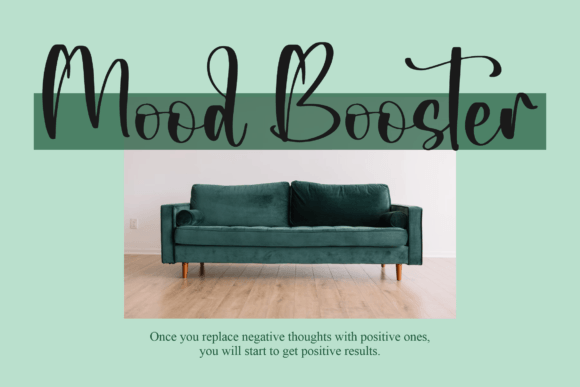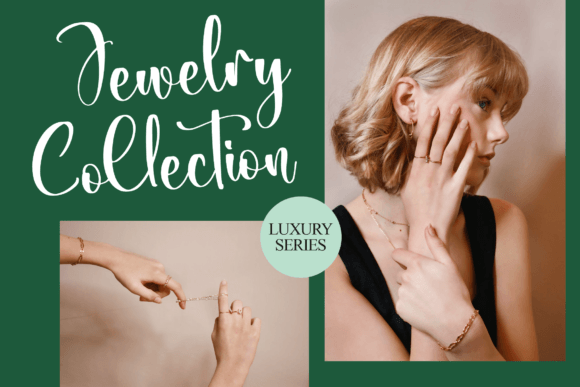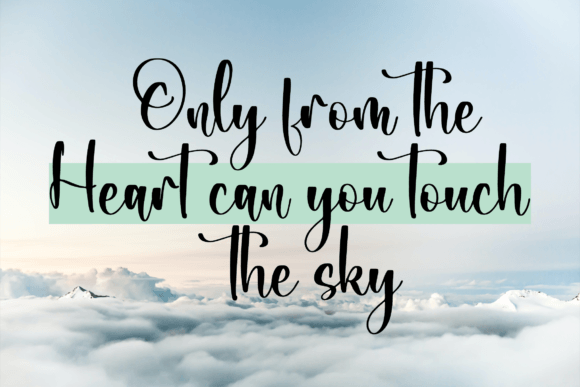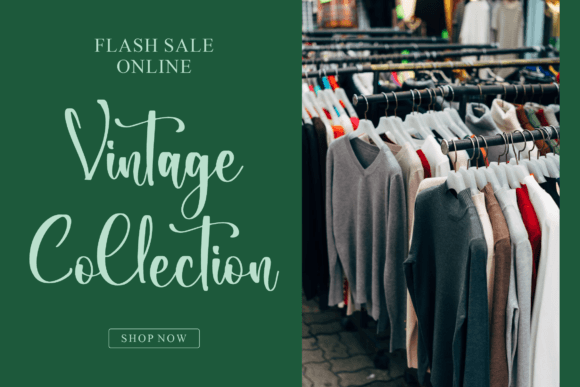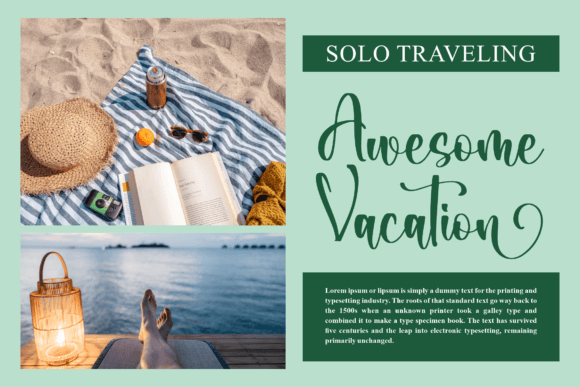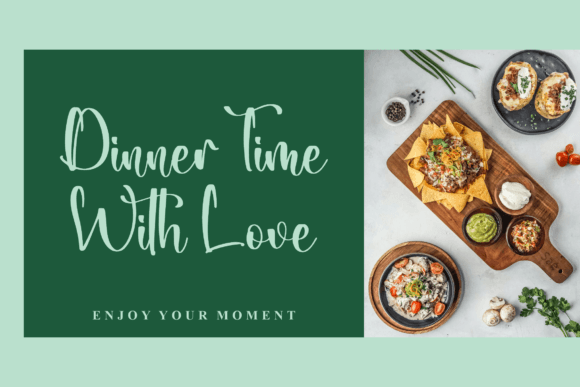
Discover the Perfect Script: Calistora Font
Have you ever stared at a blank canvas, searching for the perfect font to bring your design to life? You know, that moment when the blank page is staring back at you, and you’re not sure where to start? That’s exactly what happened to many designers when they stumbled upon the Calistora Font. This modern and cool script font has been the answer to their prayers, providing the perfect blend of elegance and personality to make any design shine.
The Calistora Font is more than just a font – it’s a tool to express yourself and connect with your audience on a deeper level. Whether you’re creating a wedding invitation, a thank you card, or a logo, this font is sure to bring a touch of warmth and personality to your design. And for designers, it’s a valuable asset that can elevate their work and set them apart from the rest.
Calistora Font Key Features
- Font Family: Calistora Font is a unique, modern script font designed for various digital applications.
- Font Size: Supports a wide range of font sizes, from 8pt to 120pt, making it suitable for various design needs.
- Resolution: Optimized for high-resolution displays, including Retina and 4K resolutions, ensuring crisp and clear typography.
- Unique Characteristics: Features a flowing, handwritten feel with subtle flair and swashes, making it perfect for creative and artistic designs.
- Character Set: Includes a comprehensive character set, including Latin, Greek, and Cyrillic alphabets, as well as punctuation and symbols.
Calistora Font Review
As a designer, I’ve had the chance to work with Calistora Font, and I’m excited to share my thoughts on this beautiful typeface.
- ✨ Elegant and sophisticated design: Calistora Font has a classic feel to it, making it perfect for luxury brands and high-end designs.
- ✨ Great for long blocks of text: The font’s readability makes it ideal for novels, articles, and other content that requires a lot of text.
- ✨ Beautiful italics: The italic versions of the font are stunning, adding a touch of elegance to any design.
- ⚠️ Limited font weights: Calistora Font only comes in a few weights, which might limit its versatility in certain designs.
- ⚠️ Not ideal for bold, attention-grabbing headlines: While the font is beautiful, it’s not the best choice for bold, attention-grabbing headlines.
Overall impression:
Calistora Font is a beautiful, elegant typeface that’s perfect for luxury brands and high-end designs. While it has some limitations, it’s a great choice for long blocks of text and adds a touch of sophistication to any design. With a bit of creativity, you can work around its limitations and create stunning designs with Calistora Font.
Tip: To get the most out of Calistora Font in Canva, use it for headings and titles to create a visually appealing design. You can also pair it with other fonts to create a unique typography combination.
Tip: To get the most out of Calistora Font in Adobe Photoshop or Illustrator, use it for typography-heavy designs, such as posters, brochures, and business cards. You can also use it to create custom typography effects, such as bold, italic, or strikethrough text.
Tip: To get the most out of Calistora Font in PowerPoint or Word, use it for presentations and documents that require a professional and clean typography. You can also pair it with other fonts to create a unique typography combination.
Calistora Font is suitable for a variety of use cases, including:
- Business cards and stationery
- Posters and flyers